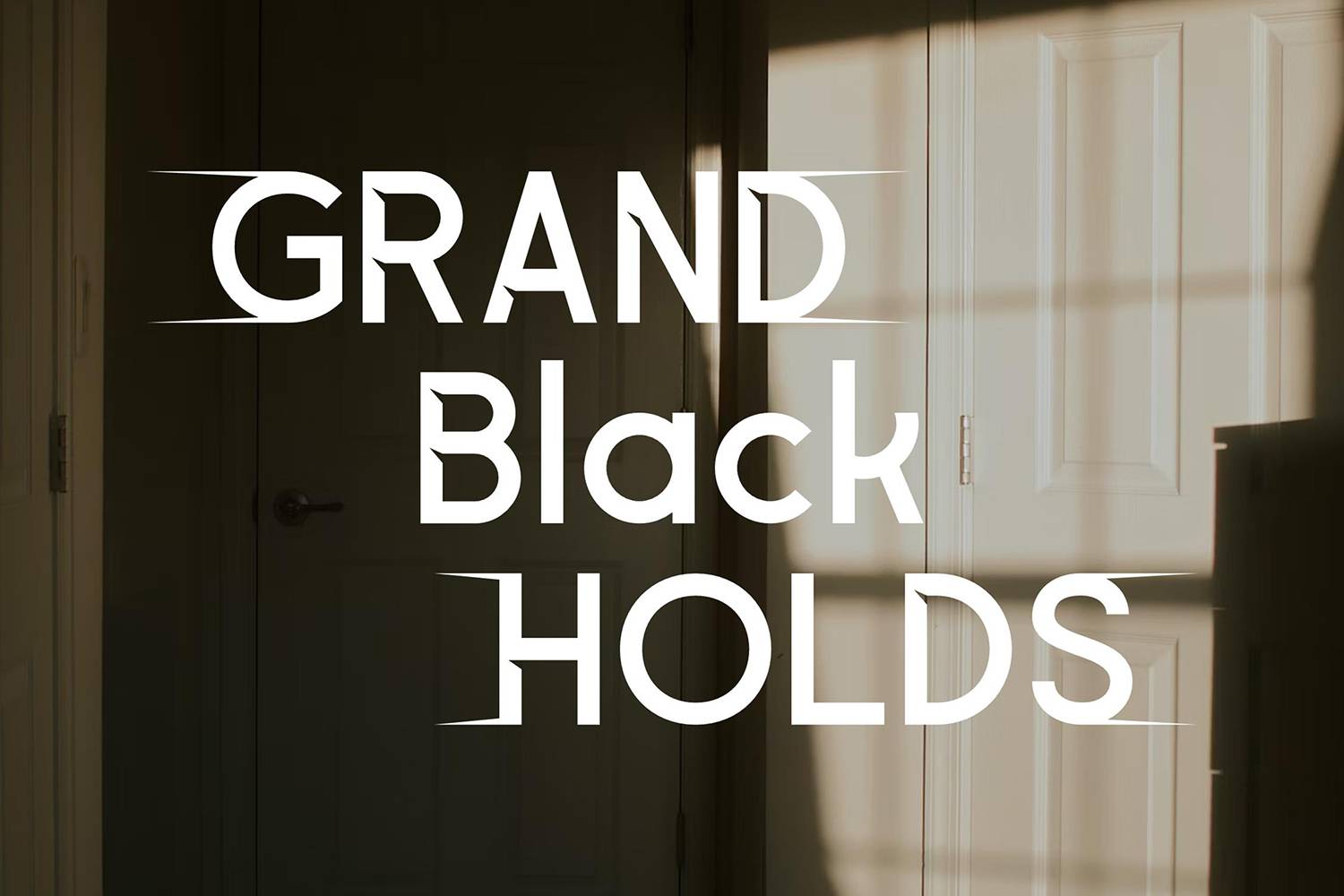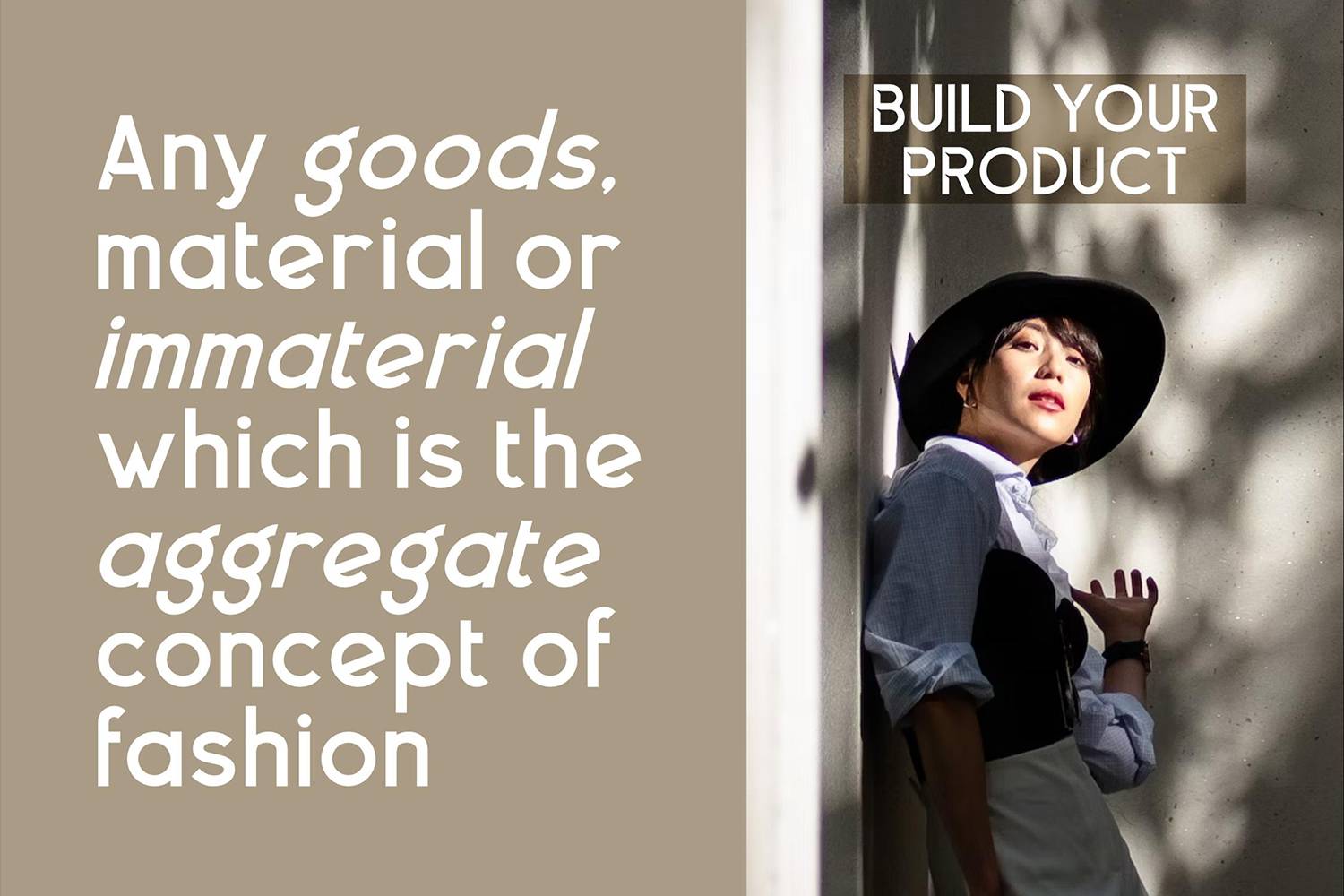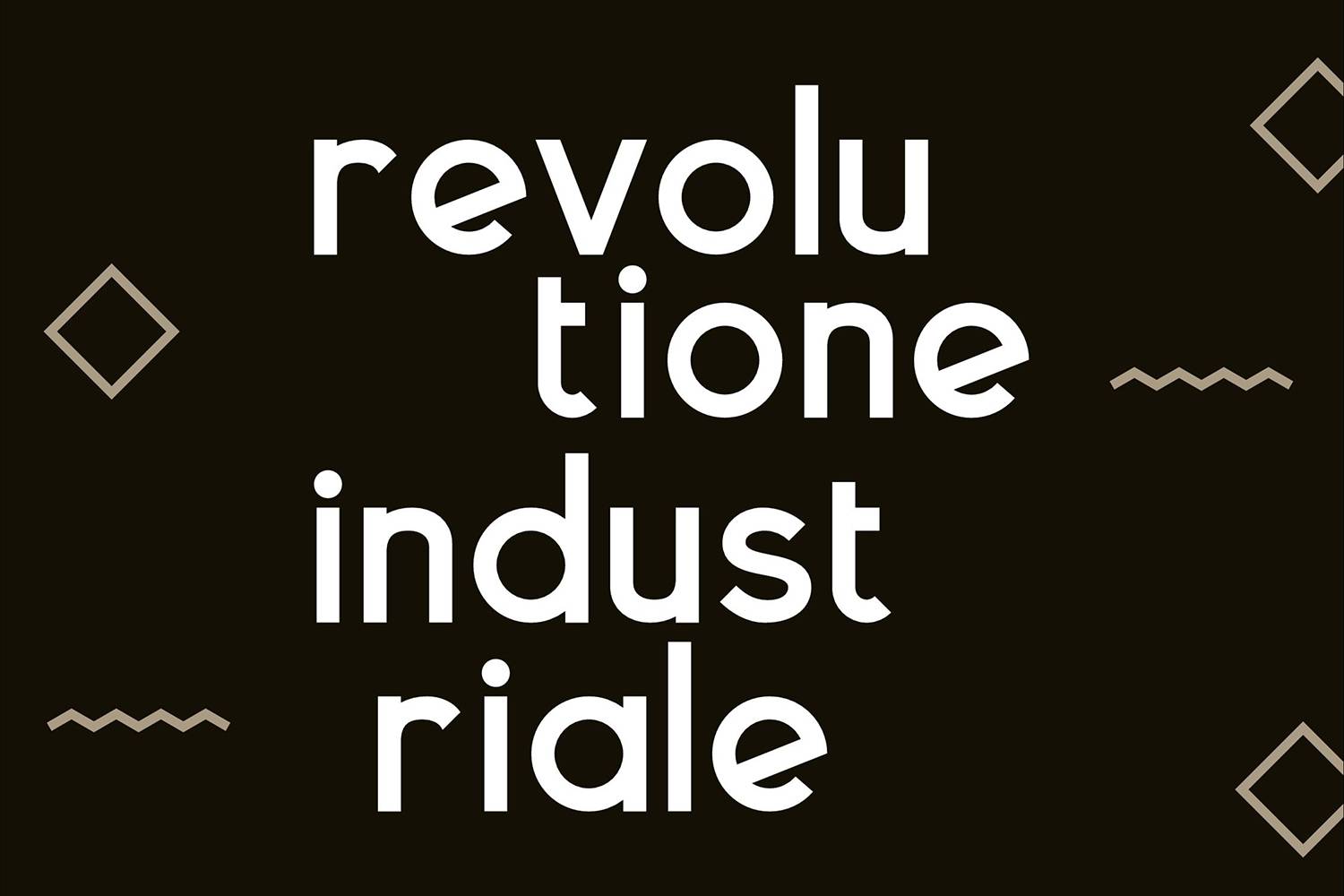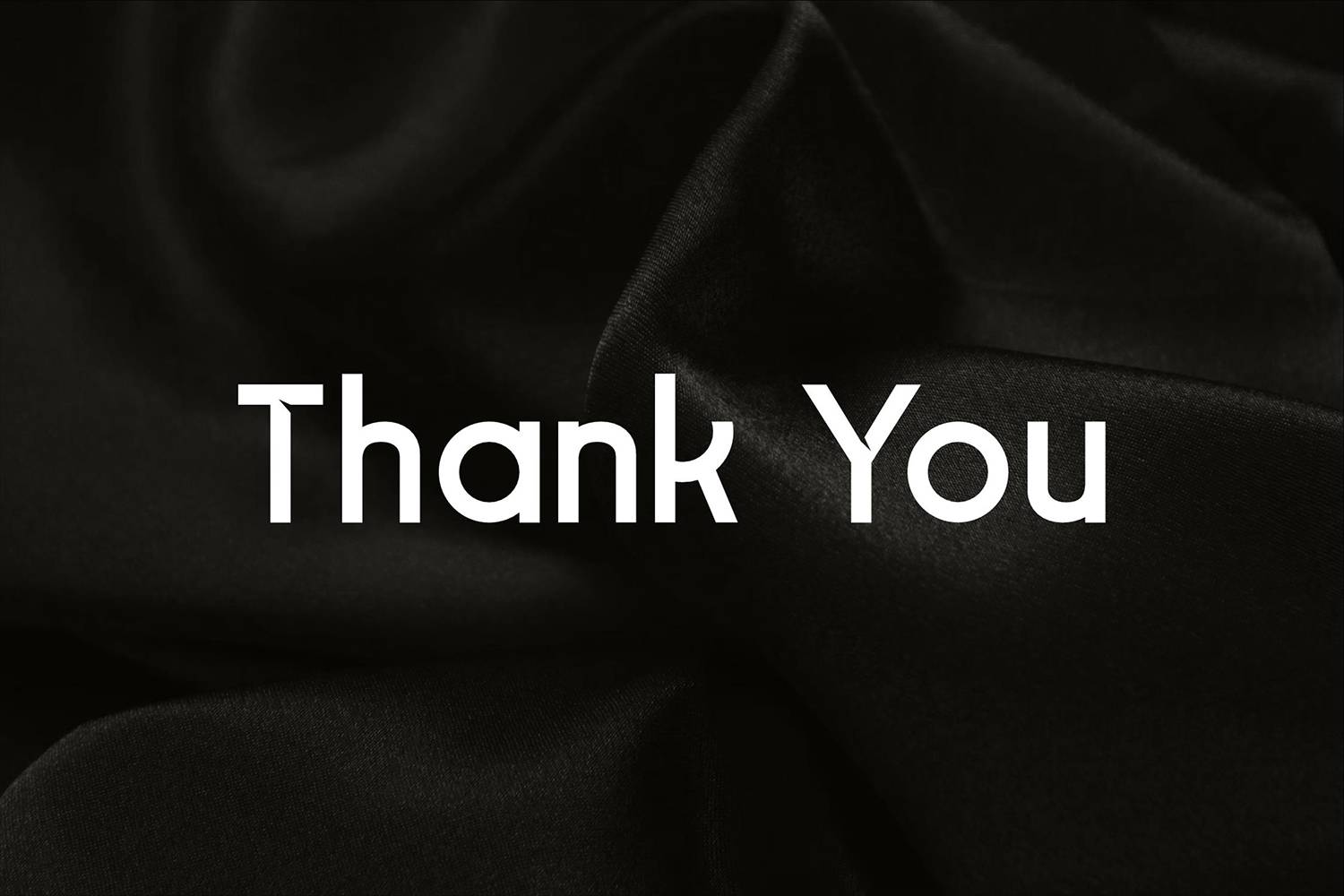
Shadeon is a modern sans serif font featuring a clean, geometric design with a slightly condensed width and medium contrast between strokes. Its sharp, stylized letterforms and distinctive details—such as the angled terminals and single-story “a” and “g”—give it a contemporary, sophisticated feel ideal for branding, headlines, and editorial projects seeking a sleek, professional look. This font works well in digital and print formats where clarity and a unique visual identity are key.
Shadeon Font
About Shadeon Font